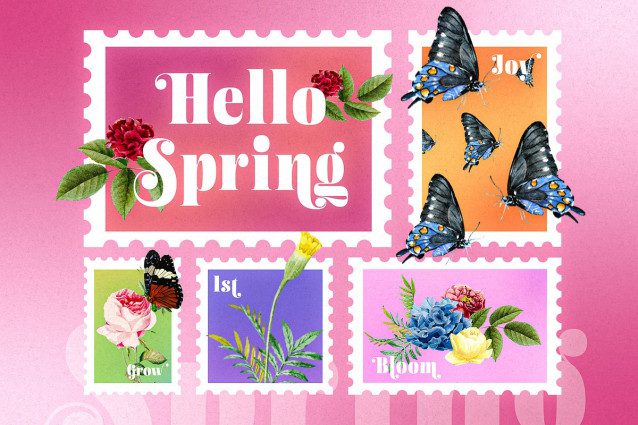
Kinetic Kisses Font
Kinetic Kisses Font, the Display Serif font crafted for casual vibes and versatile use. Whether you’re working on logos, posters, or other creative projects in need of Stylistic Alternates and Gorgeous Ligatures, this typeface has you covered.
Laid-back Display Serif Design: Immerse yourself in the relaxed charm of Kinetic Kisses, a favorite among creative minds.
Versatile Creativity: Ideal for various projects, effortlessly making your designs stand out.